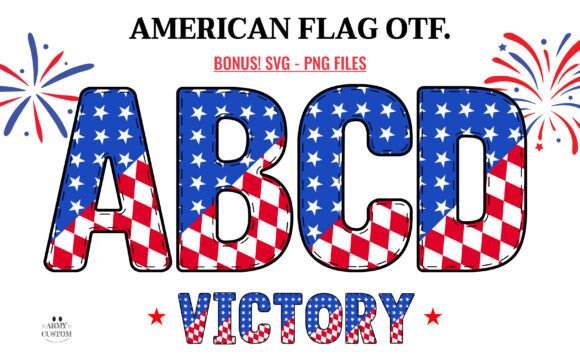
Introducing the American Flag Font: A Patriotic Celebration in Typography
Immerse yourself in the spirit of patriotic celebrations with the American Flag Font. True to its name, this font captures the essence of Memorial Day and American pride in every curve and line. Uniquely designed and inspired by the heart of the United States, it embodies the charm and spirit of American aesthetics. This is not just a font; it’s a tribute to the Land of the Free, brought to life through typography.
The Essence of American Spirit in Typography
The American Flag Font is more than just a collection of letters and symbols; it’s a representation of American values and patriotism. Each character is carefully crafted to reflect the nation’s history, freedom, and unity. Whether you’re working on a project for Memorial Day, Independence Day, or any other patriotic occasion, this font is sure to infuse an unmatched sense of national pride into your creative work.
Unique Design and Versatility
Uniquely designed with the American spirit in mind, this font is versatile and can be used in a variety of creative projects. From crafting beautiful banners and signs to designing personalized gifts and decorations, the American Flag Font is the perfect choice for designers and crafters looking to add a touch of patriotism to their work.
Why Choose the American Flag Font?
So, why choose the American Flag Font for your next project? Here are just a few reasons why this font stands out:
- Patriotic appeal: The American Flag Font is designed to evoke a sense of patriotism and national pride, making it perfect for projects related to American holidays and celebrations.
- Unique design: With its distinctive style and charm, this font is sure to grab attention and set your project apart from the rest.
- Versatility: Whether you’re a designer or crafter, the American Flag Font can be used in a variety of projects, from digital designs to physical crafts.
Tips for Using the American Flag Font
To get the most out of the American Flag Font, here are a few tips to keep in mind:
- Experiment with colors: While the black version of the font is perfect for cutting machines, don’t be afraid to experiment with different colors and textures to add depth and interest to your project.
- Mix and match: Combine the American Flag Font with other fonts and design elements to create a unique and eye-catching look.
- Pay attention to details: With its intricate design, the American Flag Font requires attention to detail to get the most out of it. Take the time to adjust the font size, spacing, and other settings to achieve the desired effect.
The American Flag Font is a powerful tool for designers and crafters looking to add a touch of patriotism to their creative projects. With its unique design, versatility, and technical compatibility, this font is sure to infuse an unmatched sense of national pride into your work. Whether you’re working on a project for Memorial Day, Independence Day, or any other patriotic occasion, the American Flag Font is the perfect choice.